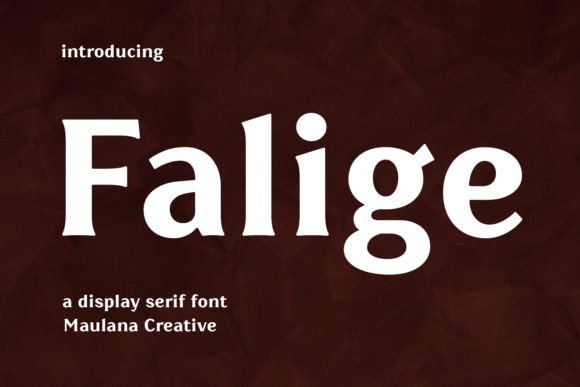
Step into the world of Falige Font, a serif masterpiece designed by Maulana Creative. Its striking aesthetic will elevate your designs to new heights, making them impossible to ignore. Whether crafting magazines, invitations, or igniting social media feeds, Falige Font is the key to creating captivating visuals that resonate with your audience.
Dive into a world where typography speaks louder than words. Falige Font's modern, easy-to-spot charm transforms ordinary text into mesmerizing statements. Its graceful serifs add a touch of sophistication, while its clean lines ensure readability and clarity. From eye-catching posters to heartfelt invitations, Falige Font brings a touch of elegance to any project.
Embrace your creativity and let Falige Font guide your artistic vision. Its versatile nature shines across various mediums, including crafting, social media, and digital designs. Whether you're a seasoned designer or just starting your creative journey, Falige Font empowers you to express yourself like never before.
Experience the beauty of Falige Font today and watch your designs come alive with a distinctive charm. Its modern aesthetic will leave a lasting impression, captivating audiences and leaving them eager for more. Unleash your creativity and let Falige Font transform your design dreams into stunning realities.